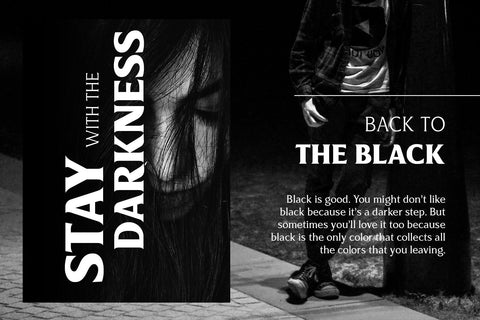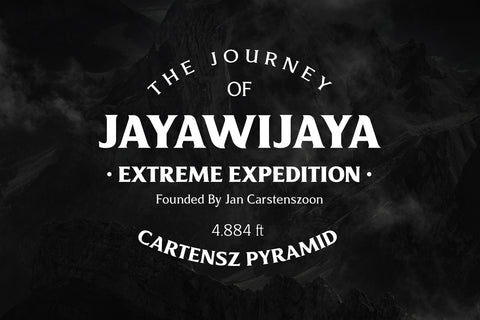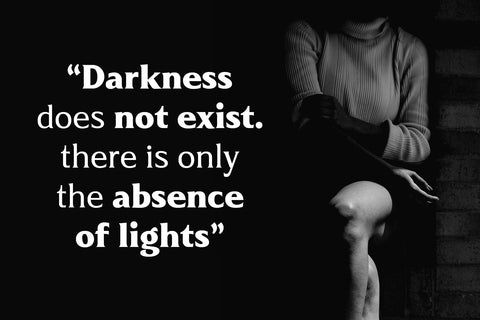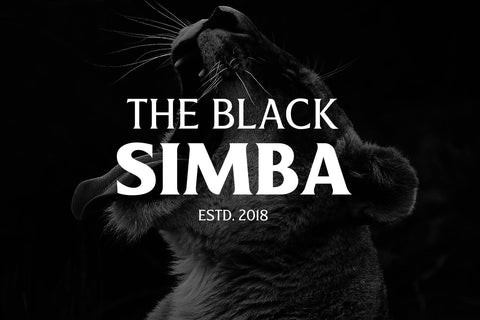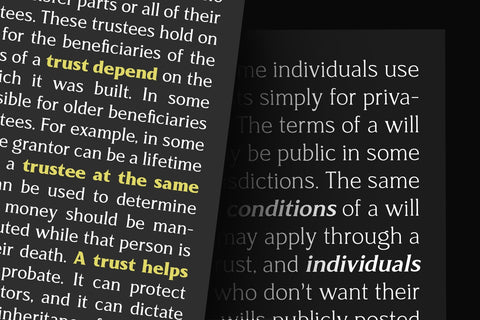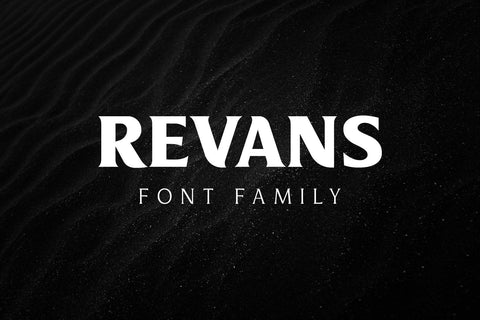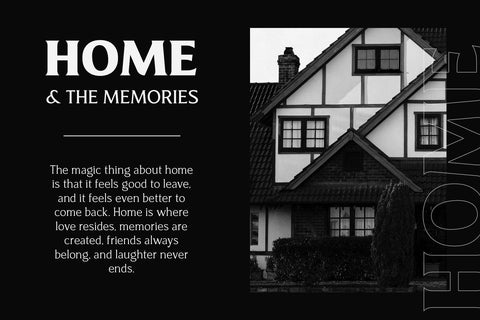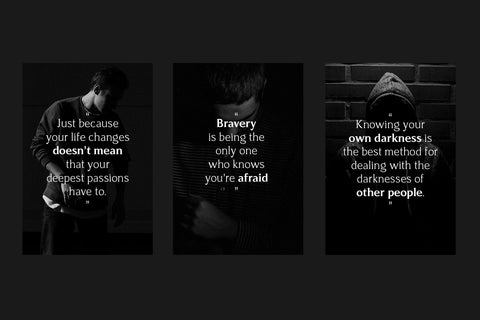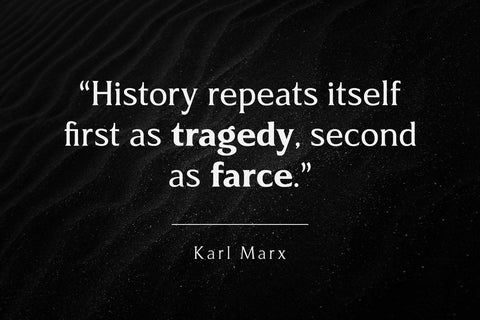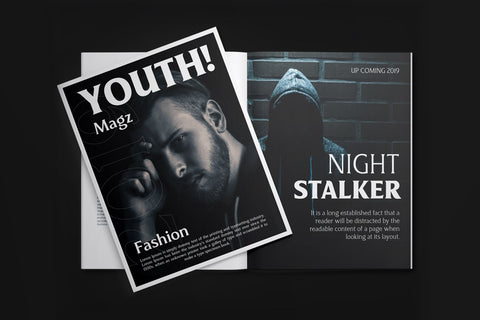
Revans Font Family
Revans is a strong serif font with medium contrast. Inspired by the High Octane Rock genre and modern-classic fashion. Carefully designed with a short ascender to give a solid look, also the sharp serif makes the letters look more strong.
Revans is a display-type which perfect for a headline, sub-headline, and short body text for magazines, books, fashion, quotes, hipster t-shirt, signboards, logo, and etc. Available in 5 weights: Light, Normal - Medium - SemiBold and Bold, complete with the slant style. A great choice for a brave concept!
- Numbers
- Symbols
- Punctuation
- Accents : ÀÁÂÃÄÅÆÇÈÉÊËÌÍÎÏÐÑÒÓÔÕÖØÙÚÛÜÝÞßàáâãäåçèéêëìíîïñòóôõöøùúûüýþÿ ĀāĂ㥹ĆćĈĉĊċČčĎďĐđĒēĔĕĖėĘęĚěĜĝĞğĠġĤĥĦħĨĩĪīĮįİıIJijĴĵĹ弾ĿŀŁłŃńŇňŌōŎŏŐőŔŕŘř ŚśŜŝŞşŠšŤťŦŧŨũŪūŬŭŮůŰűŲųŴŵŶŷŸŹźŻżŽžẀẁẂẃẄẅ